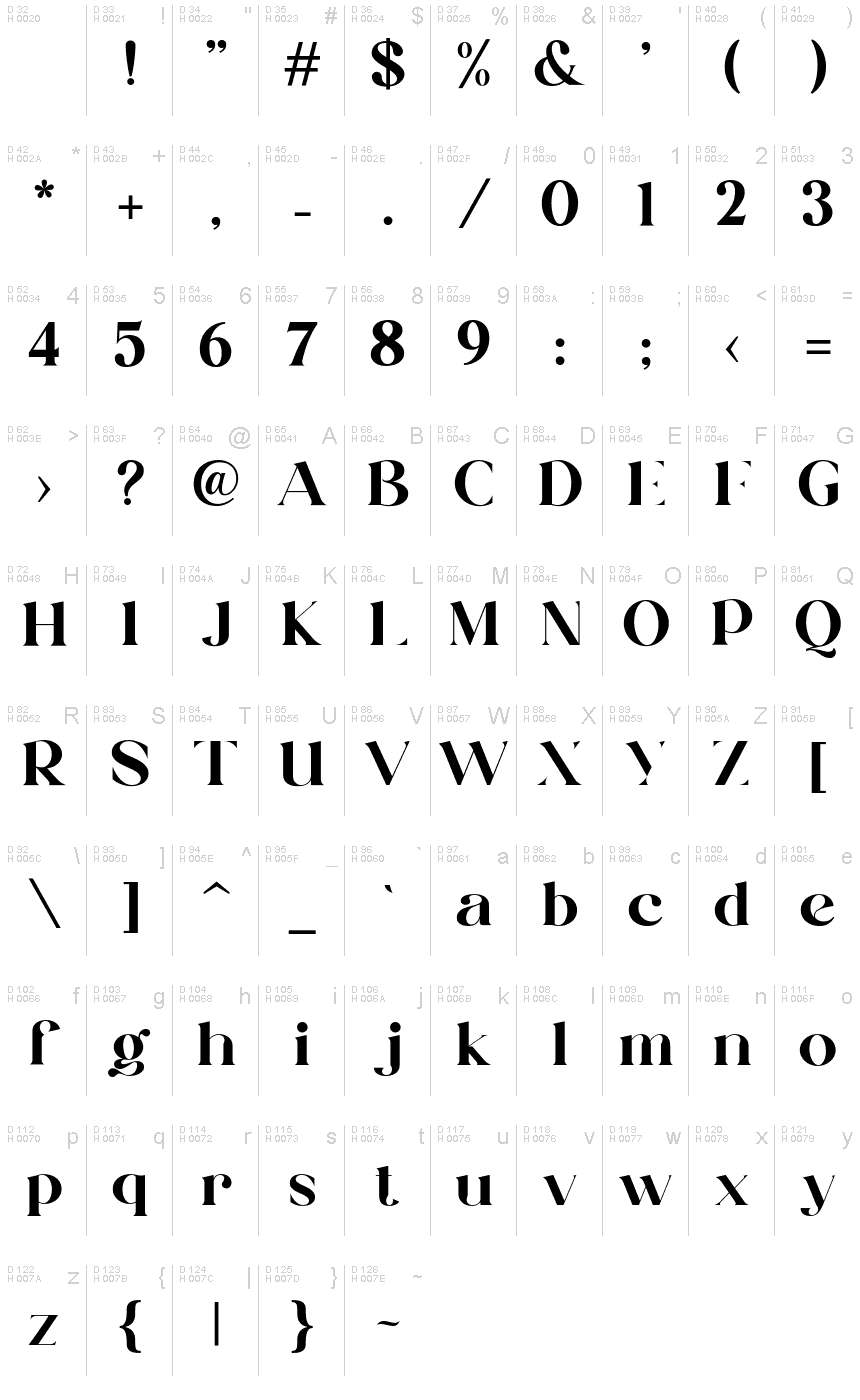
Milkipa
Milkipa by Graphicxell is a stunning serif font that is perfect for adding a touch of elegance to your designs. Its semi-bold weight gives it just the right amount of weight to make it stand out without being overpowering. This versatile font is suitable for a wide range of projects, including wedding invitations, book covers, and branding materials. Milkipa's classic style and clean lines make it ideal for both digital and print applications, making it the perfect choice for designers who want to create timeless and sophisticated designs. With Milkipa, your projects are sure to make a lasting impression on your audience.